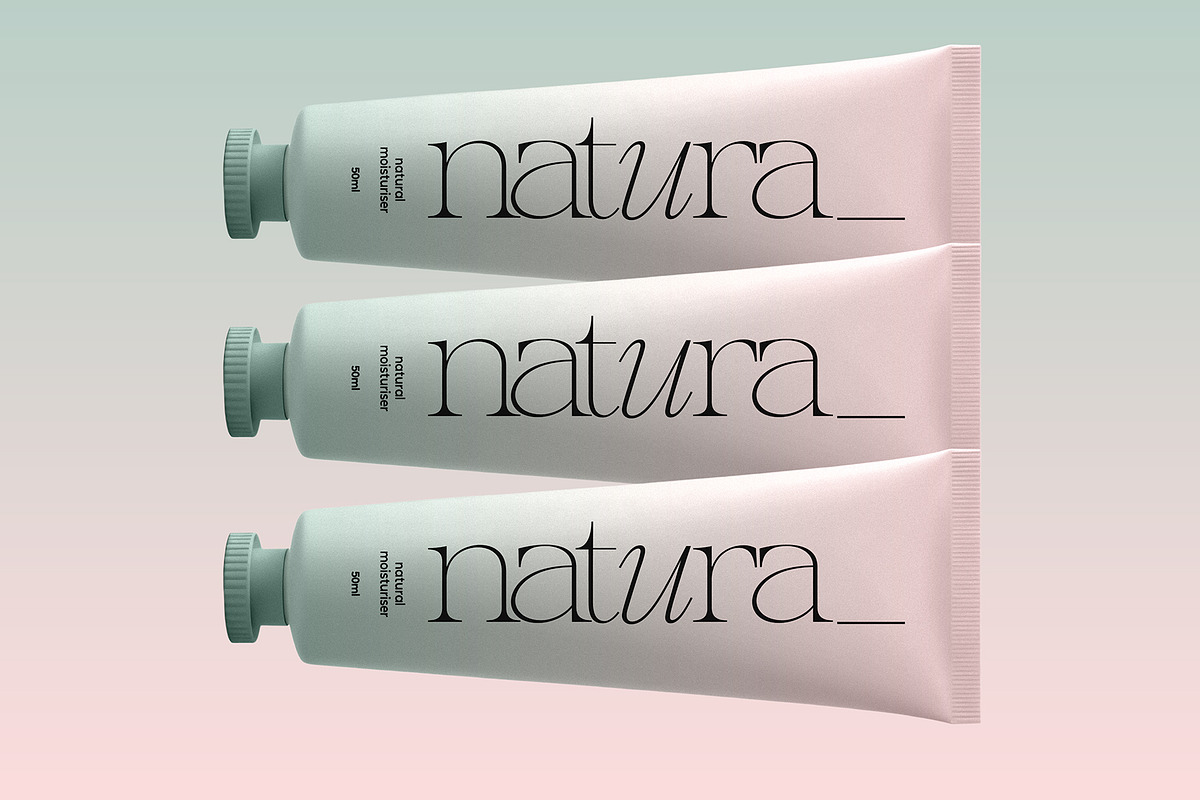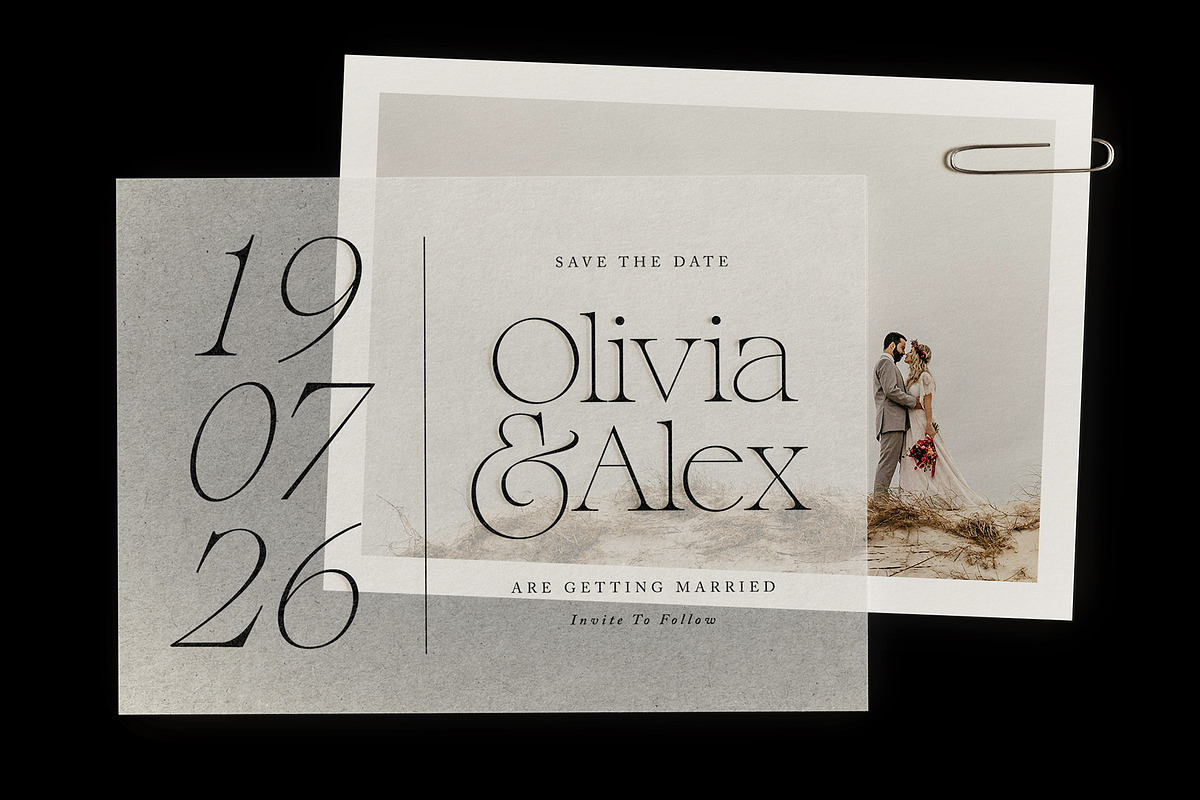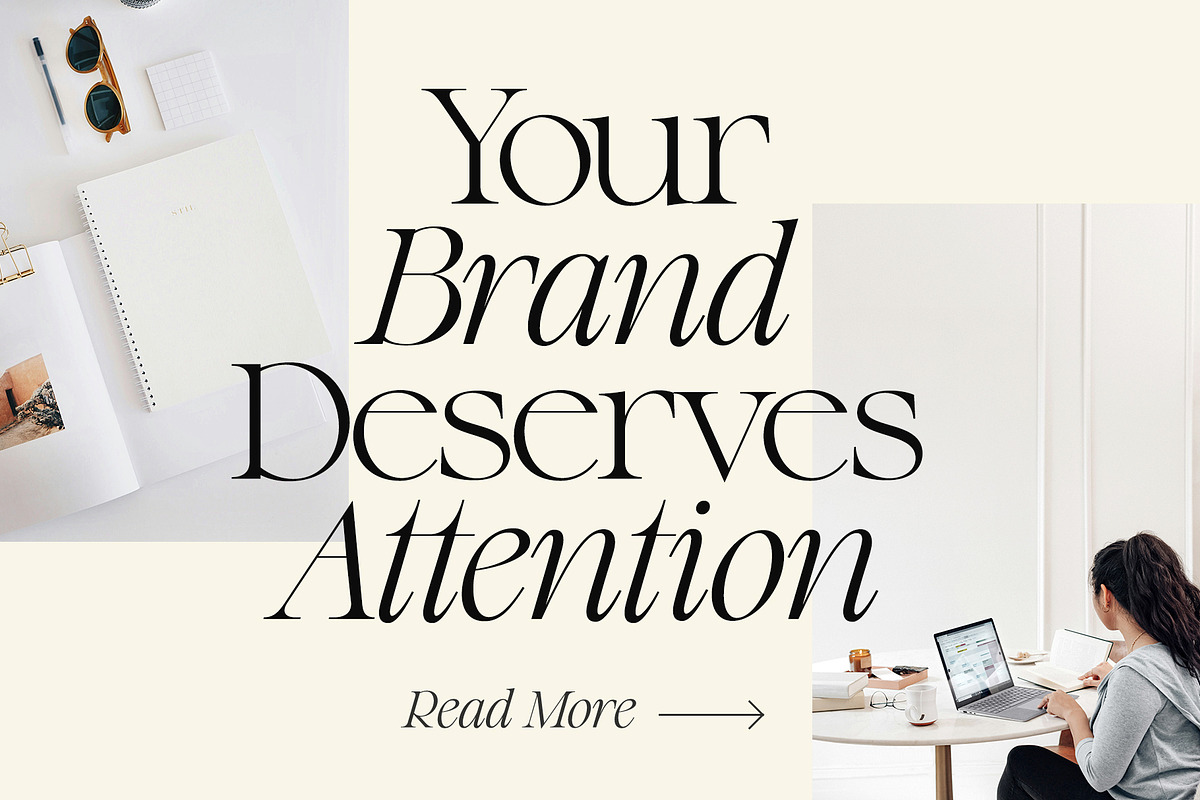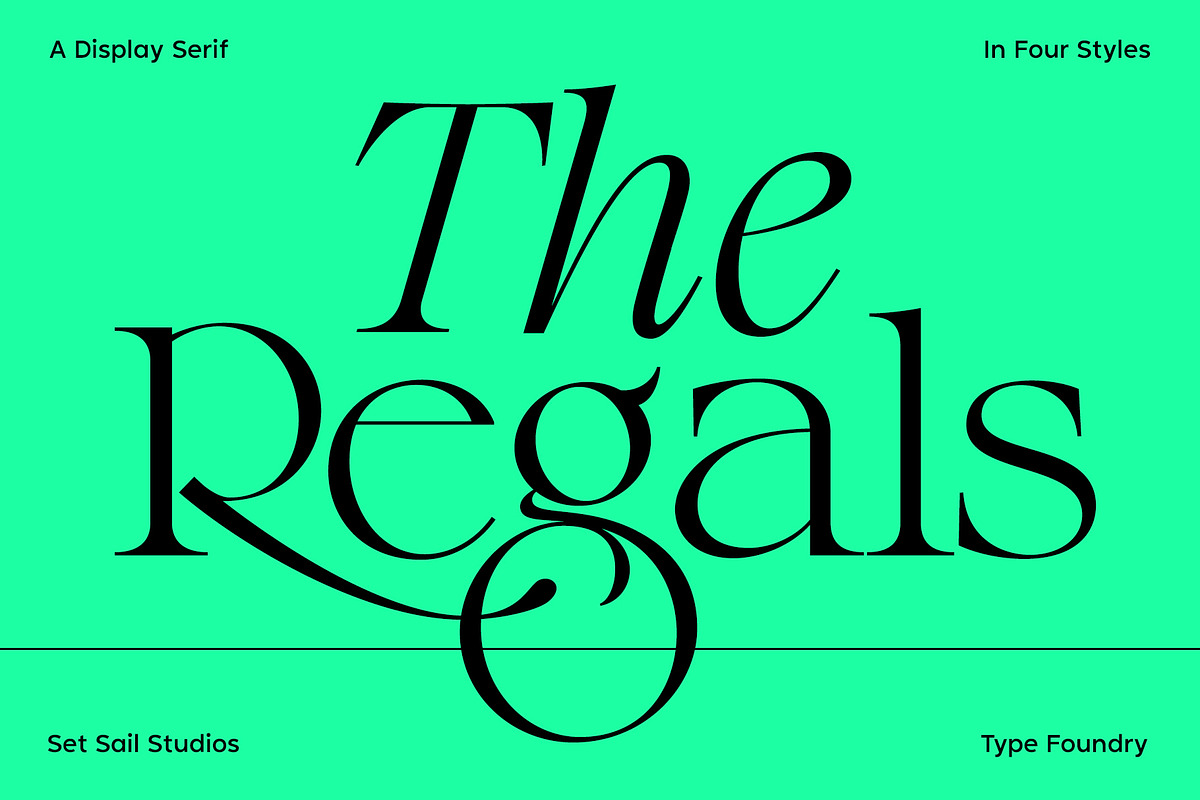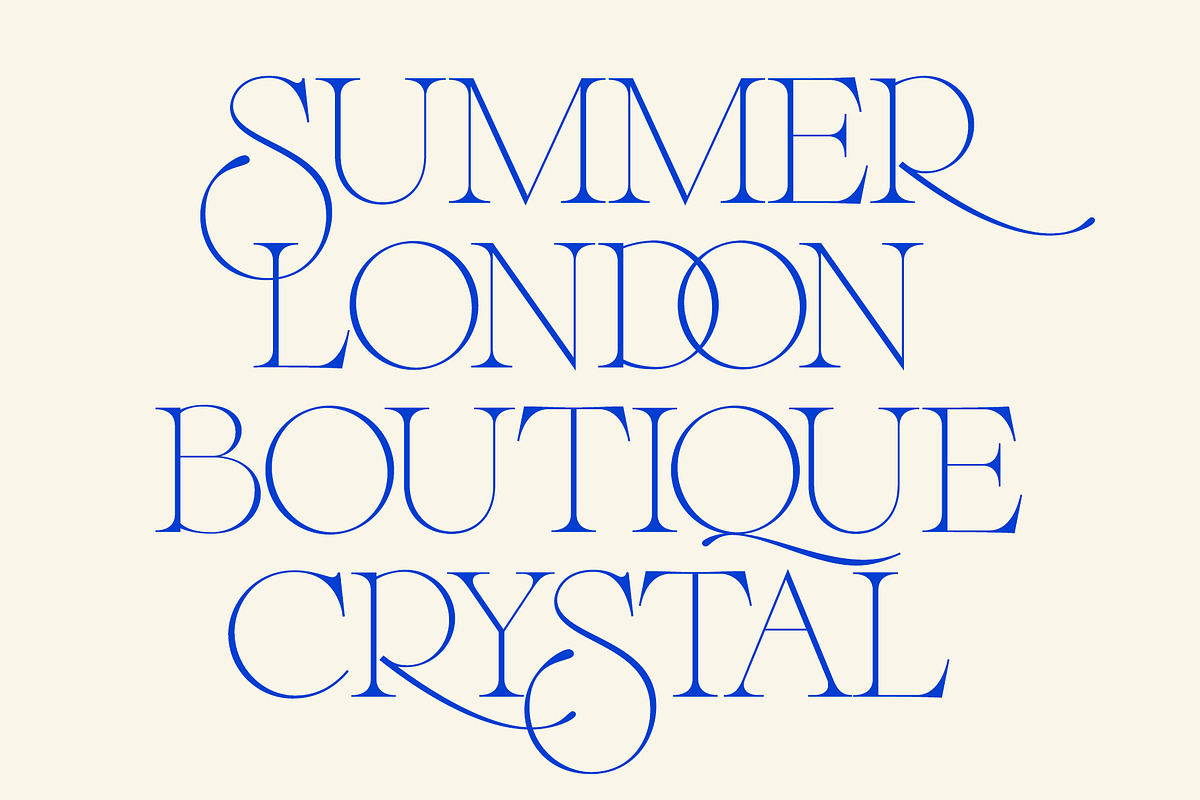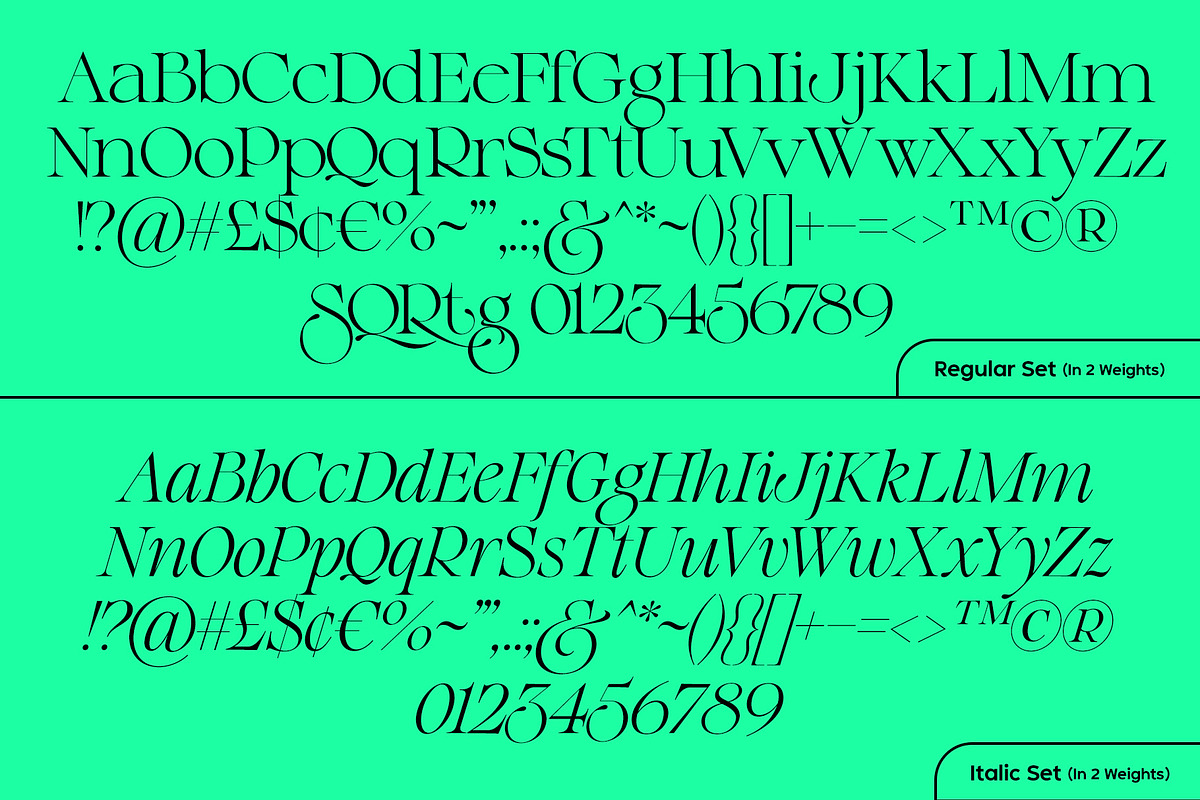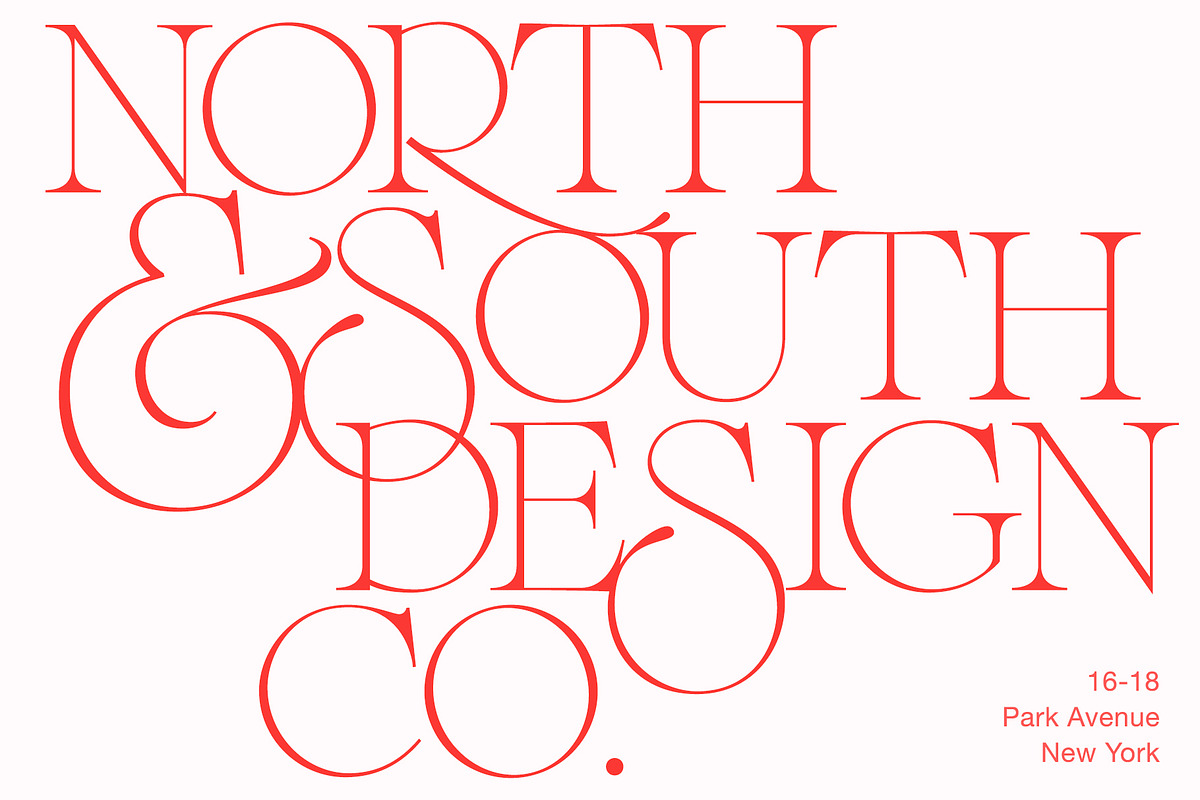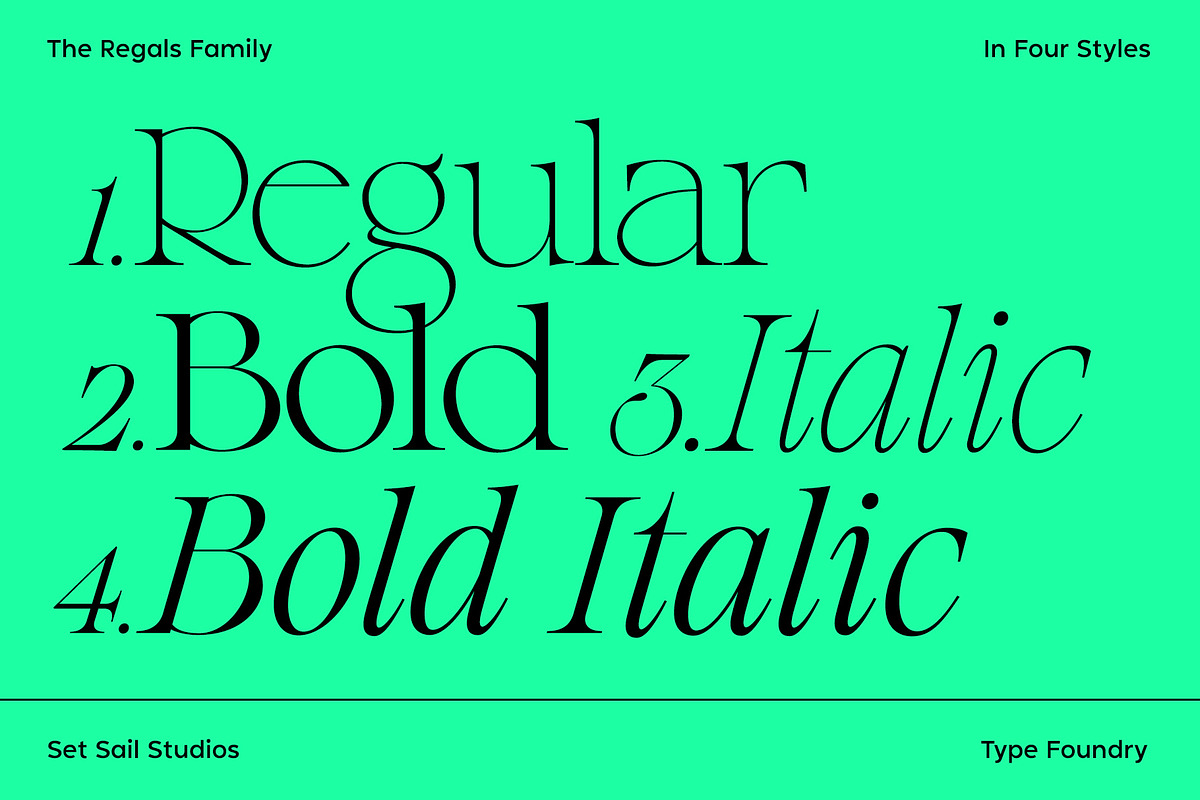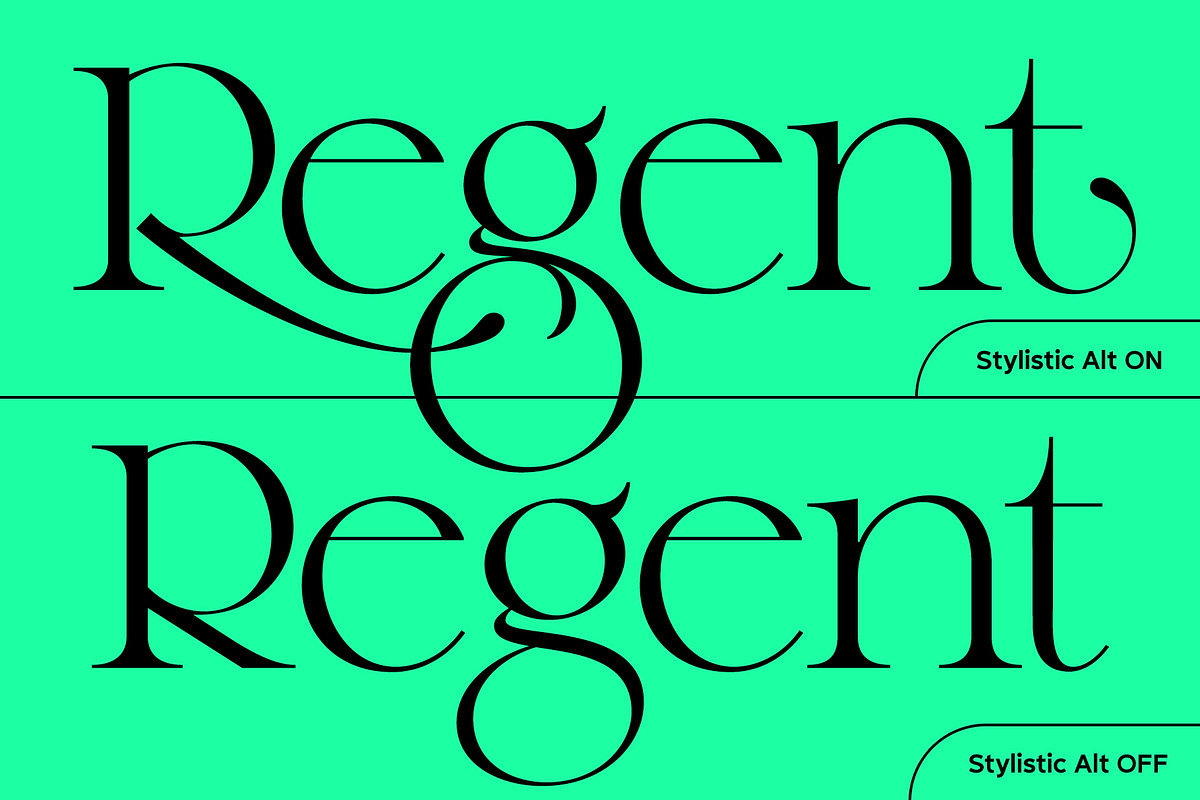
The Regals Serif Font
Introducing The Regals Serif Font Family - a crisp, modern spin on a classic transitional serif font. The Regals is a strong & classy display typeface which is highly versatile - offering 4 different styles (Regular, Bold. Italic, Bold italic), as well as a range of ornate alternate and overlapping ligature characters for when you're in need of a little extra custom flair. Whether it's stylish headers, elegant logos or timeless quote layouts, The Regals fonts are ready to add sophistication and presence to a range of design projects.
Accessing Ligatures and Alternates • Ligatures are available by turning on 'Standard Ligatures'. Ligatures will automatically generate when available (see images for full list of 36 ligatures). Alternate characters are available by turning on Stylistic 'Alternates'. characters S, Q, R, g, t will switch to the alternate letterform when using the Regular or Bold styles.